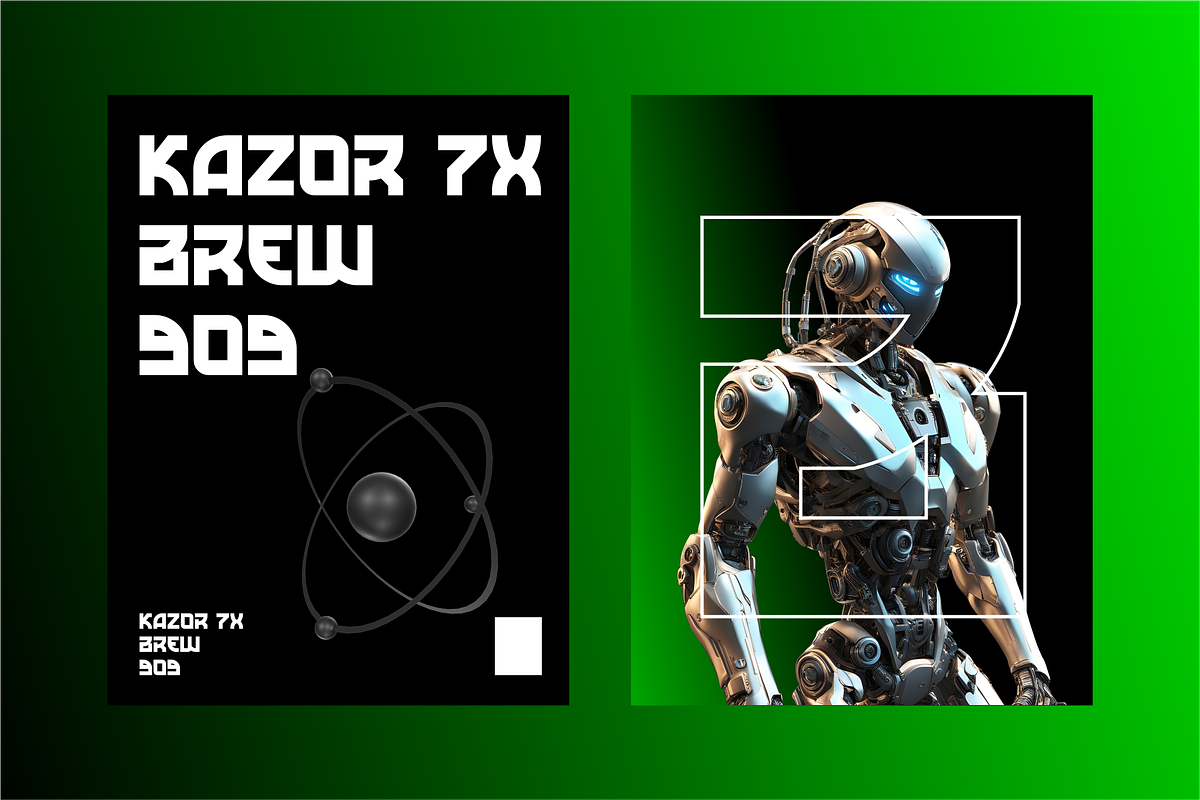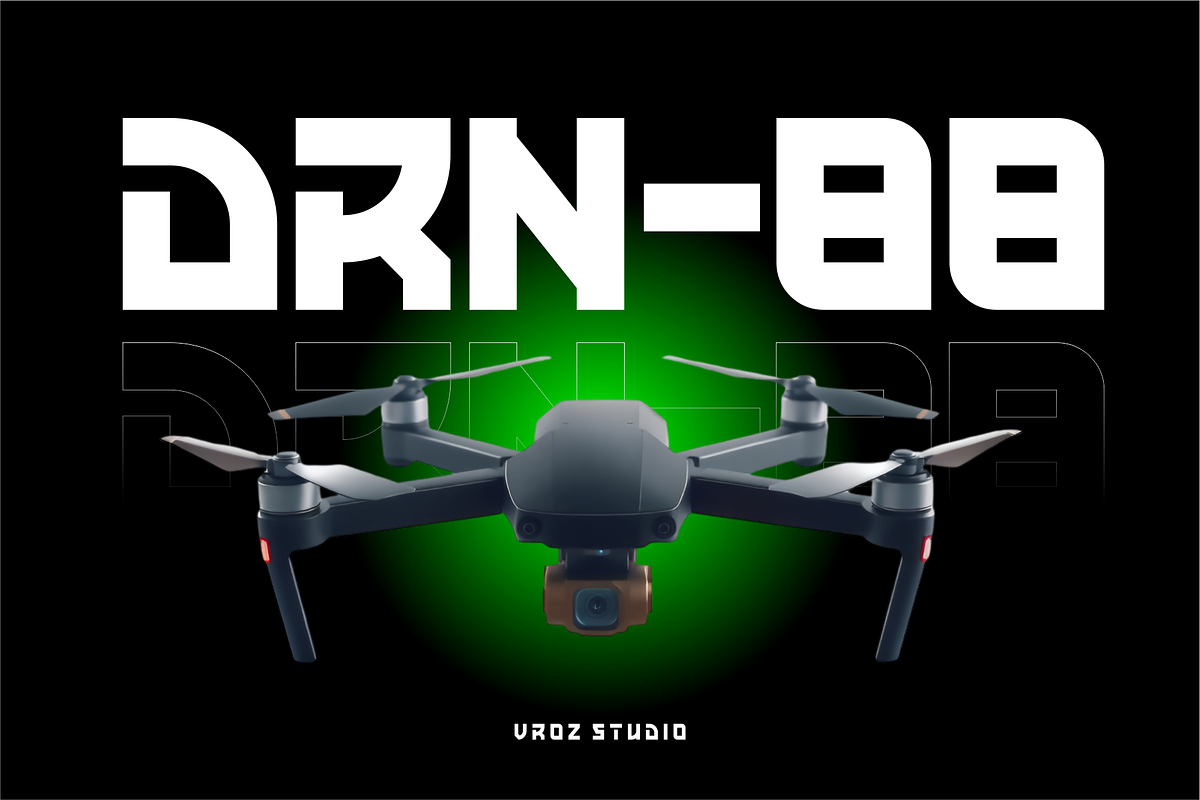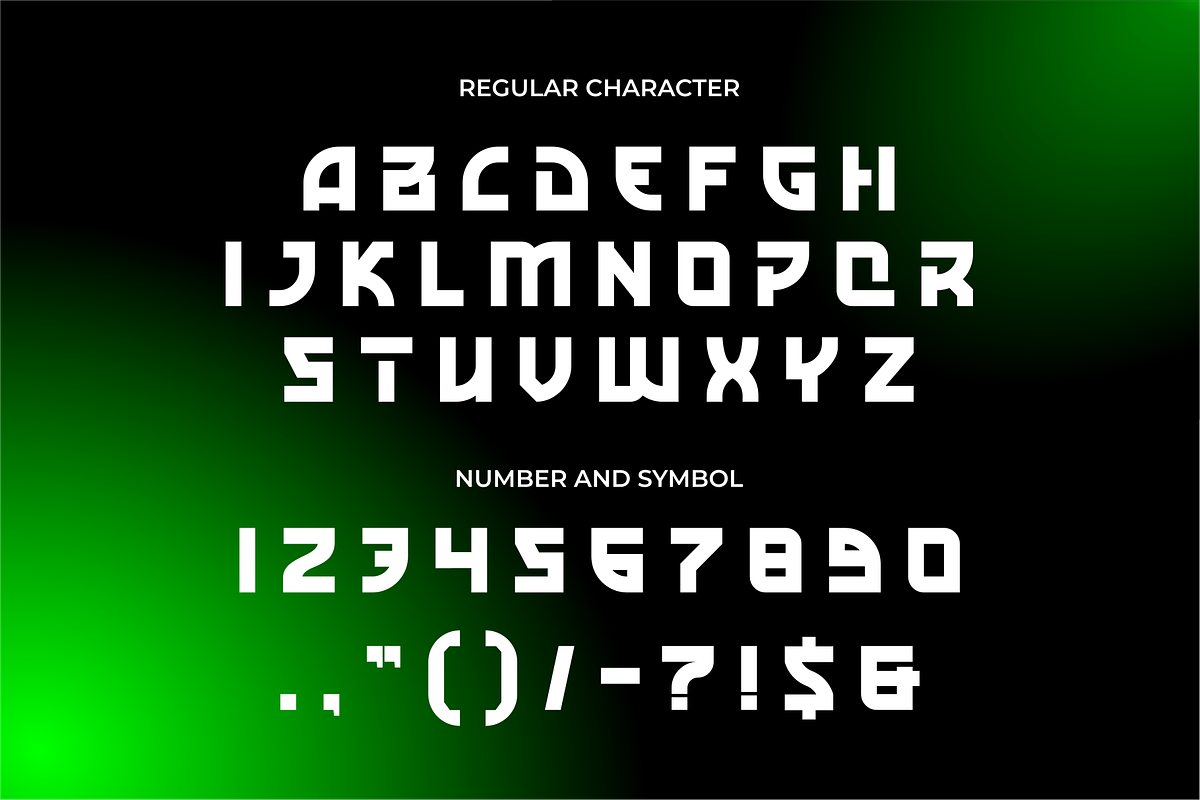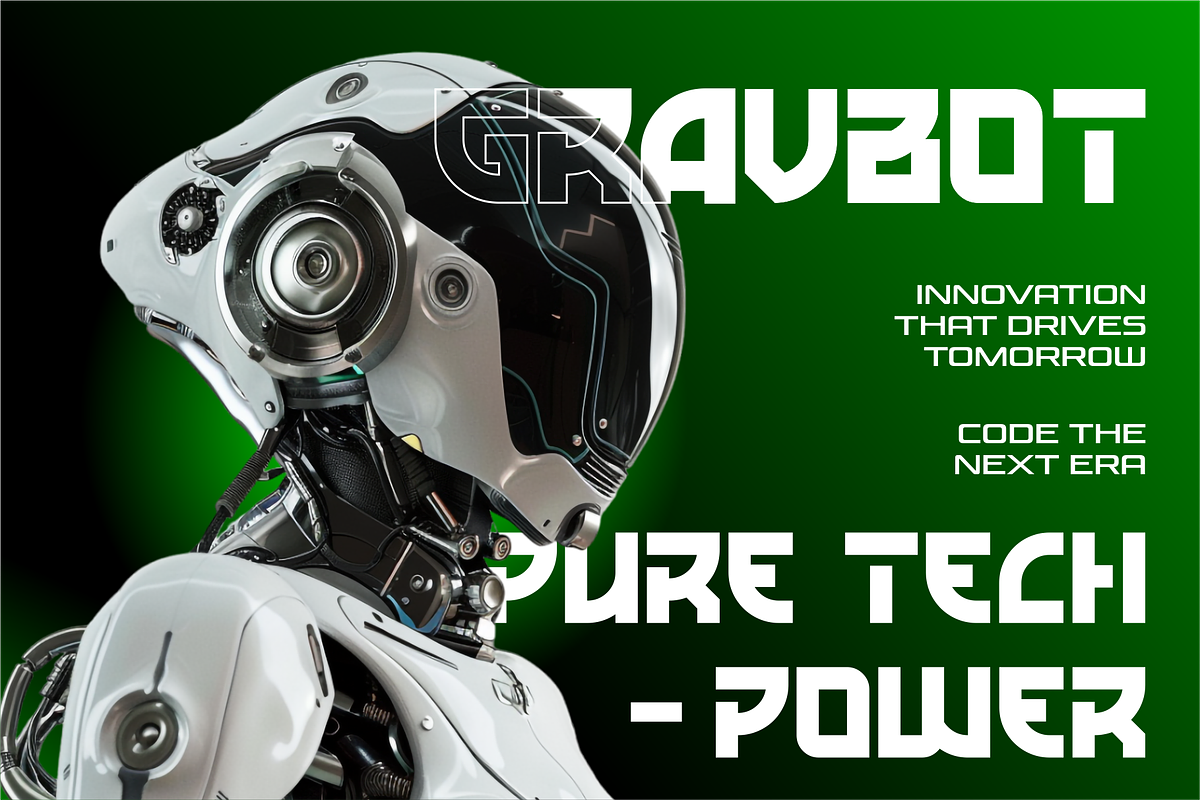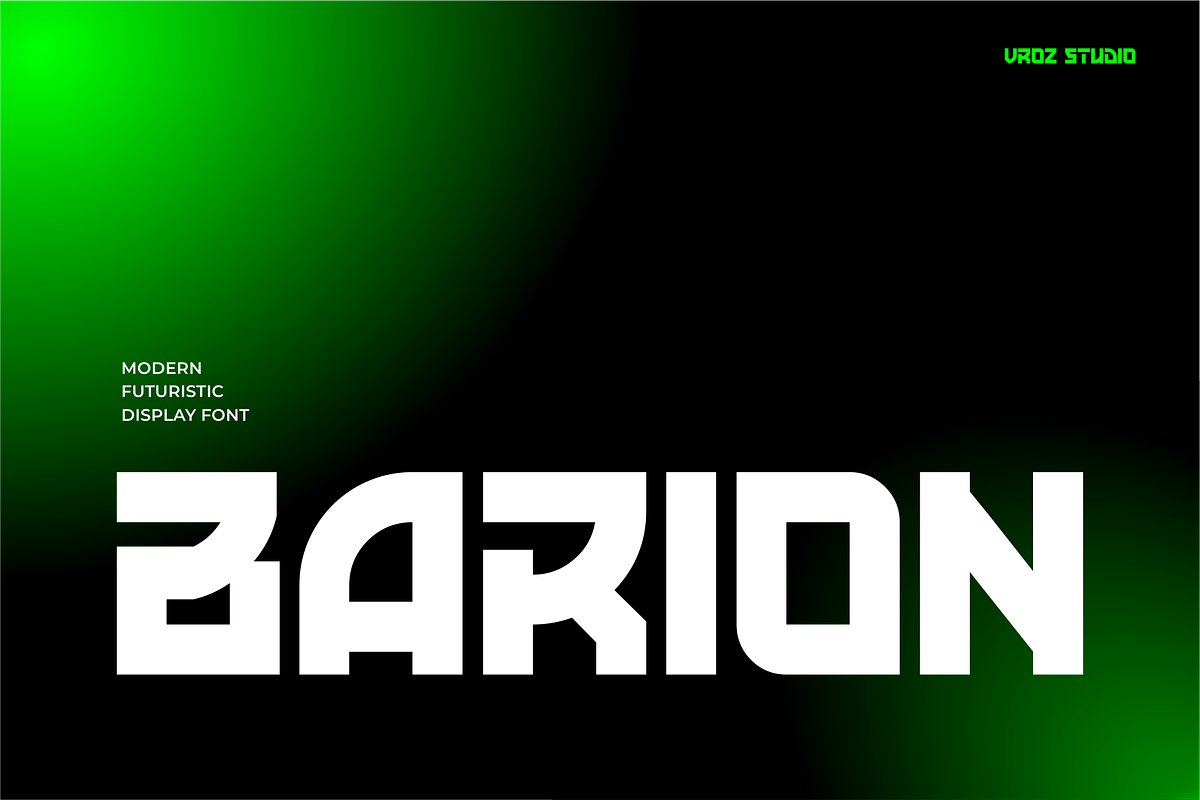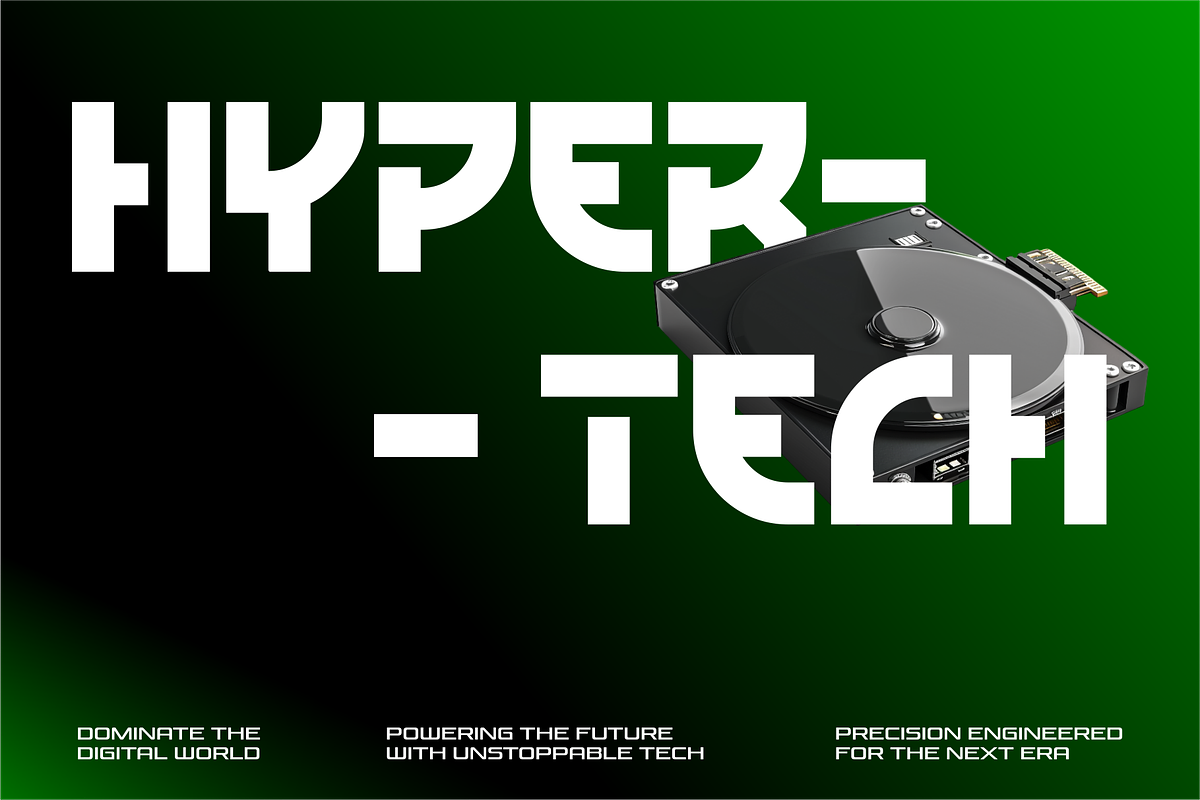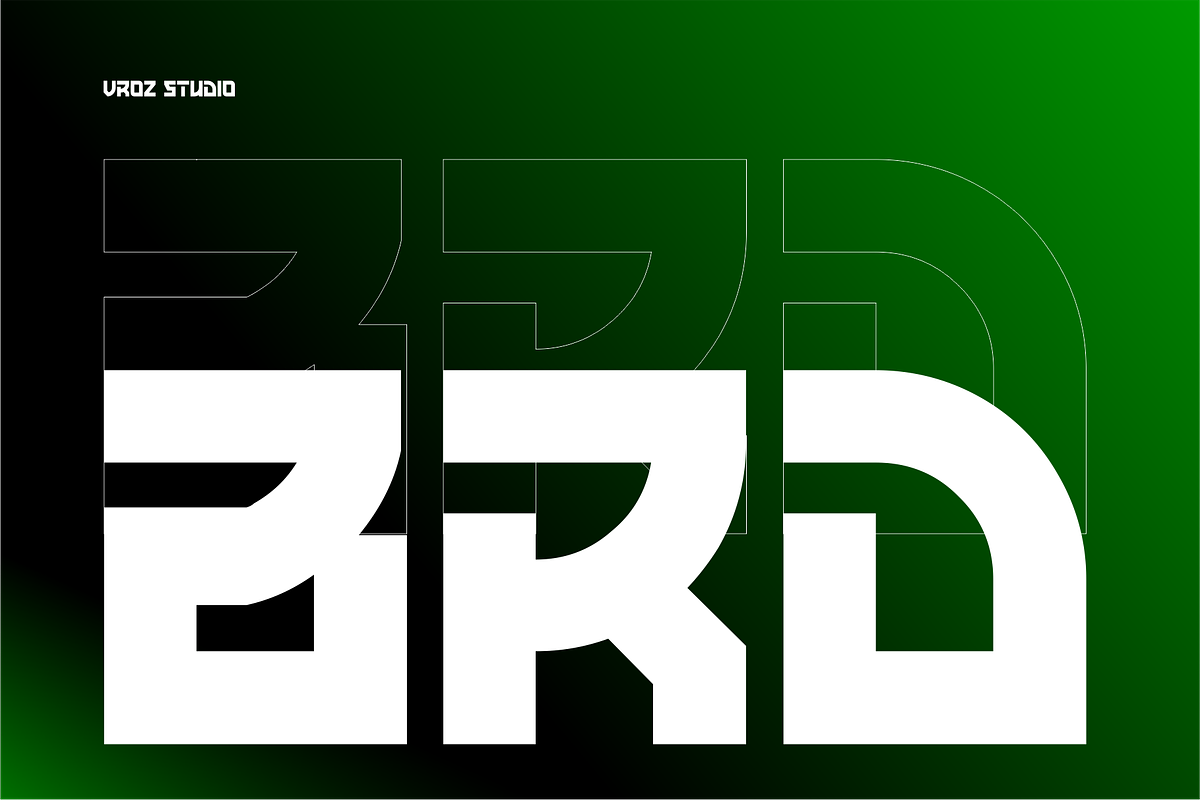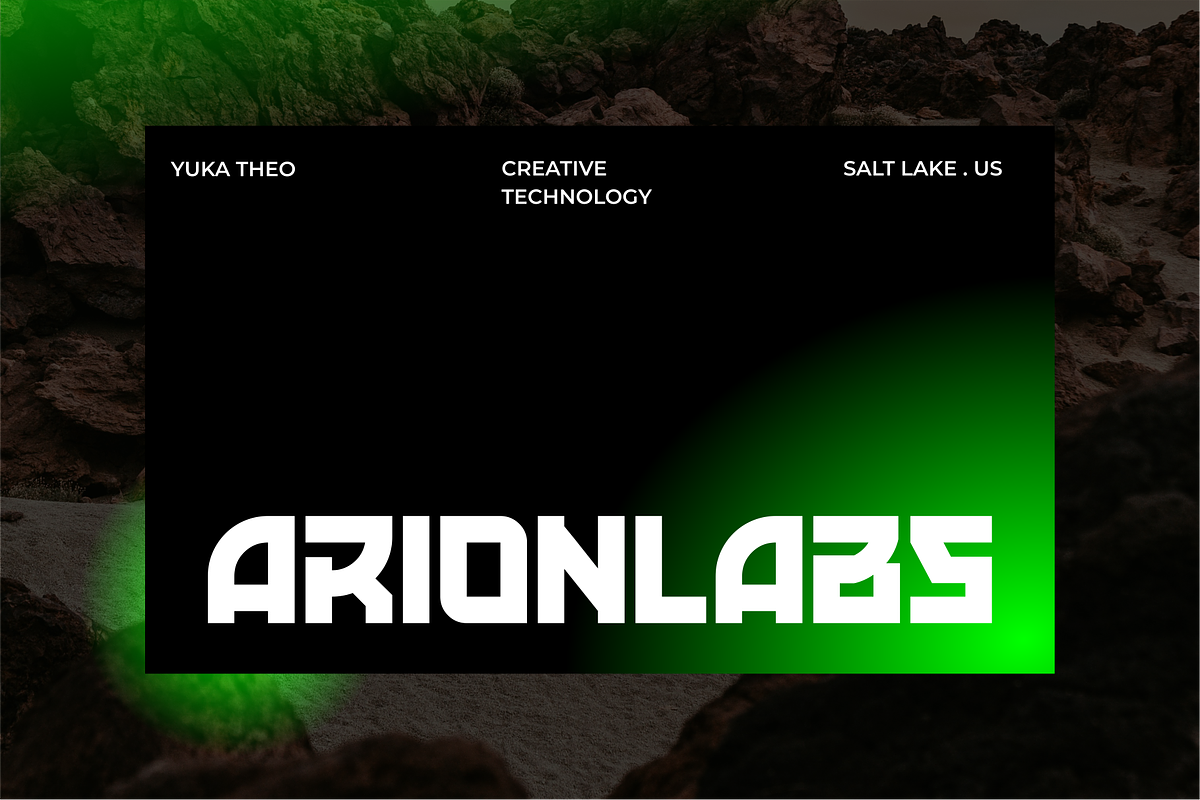
BARION- Modern Futuristic Display
BARION — Modern Futuristic Display Font
BARION is a cutting-edge modern display font crafted with a bold futuristic vision. Built from precise geometric forms and sharp digital curves, BARION delivers a striking visual presence that feels both advanced and highly refined. Every letter is engineered to project strength, clarity, and a forward-driven identity.
Designed for creators who want to stand out, BARION captures the essence of tomorrow’s design language—minimal, powerful, and unmistakably modern. Its distinctive structure makes it highly versatile while maintaining a unique character that instantly elevates any composition.
Perfectly suited for tech branding, esports visuals, sci-fi movie titles, UI/UX concepts, posters, digital campaigns, and motion graphics, BARION brings a high-impact aesthetic that commands attention without sacrificing readability.
Whether you’re building a futuristic brand, designing a next-gen interface, or creating bold promotional visuals, BARION gives your work a sleek, professional, and innovative edge.
Uppercase Characters
Clean Geometric Construction
Strong Modern Proportions
High Legibility for Display Use
Why Choose BARION?
BARION is more than a typeface—it’s a visual tool built to shape identity. It blends precision and style to help designers create impactful branding, futuristic campaigns, and standout digital experiences.